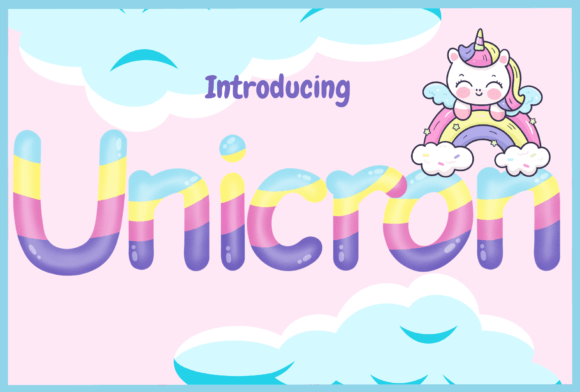
Unicorn: A Playful Typeface for Vibrant Design
There’s a moment in every creative project where the right visual element makes everything click. For designs that need to radiate joy, imagination, and a touch of whimsy, typography becomes your secret weapon. Unicorn and Unicron isn’t just another display font—it’s a character in its own right, with chunky, rounded letterforms that feel like they’ve jumped straight out of a children’s storybook or a festive invitation. Its inherent playfulness and authenticity make it a standout choice for anyone working on projects aimed at younger audiences or simply wanting to inject a dose of colorful energy into their work.
Understanding the Visual Appeal of This Chunky Typeface
What makes Unicorn visually compelling starts with its construction. The letters are bold and substantial, giving them a strong presence on any canvas. This isn’t a delicate, whispering font; it’s one that speaks with confidence and cheer. The rounded edges soften its impact, making it approachable and friendly rather than aggressive. There’s a subtle unevenness in some character details that mimics the hand-drawn quality of authentic play, which adds warmth and personality. As a display font, its primary strength is in headlines and short bursts of text where its unique shape can be fully appreciated without compromising readability. It’s a creative font that thrives on visibility and fun, sitting comfortably alongside more neutral sans serif fonts or even pairing interestingly with a simple serif font for contrast.
Practical Applications Across Creative Projects
Where does a font like this truly shine? Its versatility might surprise you. For branding and logo design, especially for businesses targeting families, children’s products, toy stores, or educational services, Unicorn can form the core of a memorable brand identity. Imagine a bakery’s logo with a name set in these cheerful letters, instantly communicating a sweet, welcoming vibe.
Beyond logos, consider its role in packaging design. A box for art supplies, a cereal brand for kids, or party decorations would benefit enormously from the font’s lively energy. It grabs attention on the shelf and sets a clear expectation of the product’s personality. Similarly, in the realm of social media graphics, using Unicorn for Instagram stories, YouTube thumbnails, or Facebook event covers can make your content pop in a crowded feed. It’s perfect for announcements, quotes, or calls-to-action that need to feel engaging and less corporate.
For print materials like posters for school events, birthday party invitations, or community fair flyers, the font’s readability at larger sizes ensures your message is seen and understood. It translates beautifully to merchandise—think t-shirts, tote bags, or stickers—where its bold shape holds up well in printing. Even in editorial layouts for children’s magazines or activity books, a heading in Unicorn can set a joyful tone for the entire spread.
Enhancing Your Design Strategy with the Right Font
Choosing a font is a strategic decision. It’s not just about what looks good in isolation, but how it serves the project’s goals. Unicorn excels when the objective is to foster audience engagement through visual warmth and playfulness. It helps in creating visual consistency across various assets; using the same distinctive typeface on your website banners, your email headers, and your product hangtags builds a cohesive and recognizable look.
This consistency directly feeds into brand recognition. When customers repeatedly encounter that specific, friendly lettering, they begin to associate it with your brand’s values and personality. However, a key piece of practical advice is to always prioritize readability. While Unicorn is fantastic for headlines and short text, for longer paragraphs or detailed instructions, pair it with a highly legible sans serif font or a clean script font for accents. This ensures your message is not only seen but also easily consumed.
Integrating Unicorn into Your Design Workflow
When you add this premium font to your toolkit, take a moment to explore all its included font styles. Does it come with alternate characters, ligatures, or multiple weights? Understanding these options allows for greater creativity and customization in your design assets. Test it extensively. Create mockups for your specific project—place it on a sample web design layout, a packaging design dieline, or a social media template to see how it behaves in context.
Font pairing is where the magic happens. Try combining Unicorn with a simple, geometric sans serif font for body text. The contrast between the playful display type and the neutral body copy creates a professional and balanced hierarchy. Alternatively, pairing it with a complementary handwritten font can amplify the casual, authentic feel for certain projects. The goal is to let Unicorn be the star of the show in headlines while supporting it with typography that ensures clarity and flow.